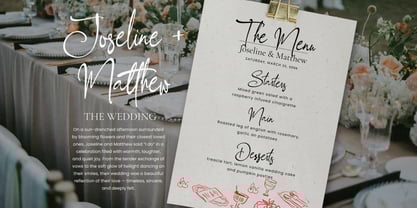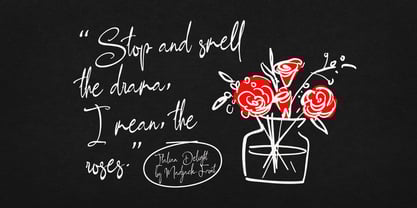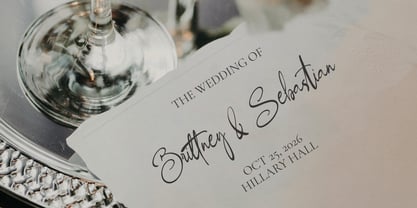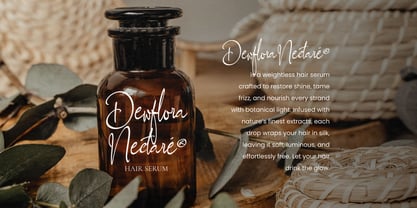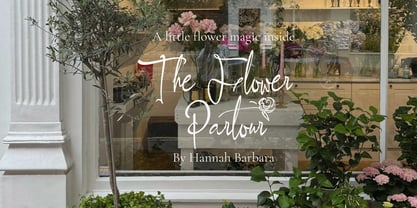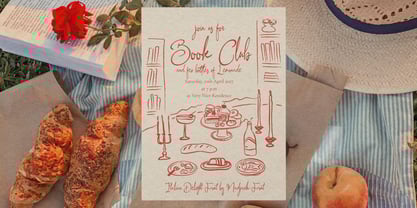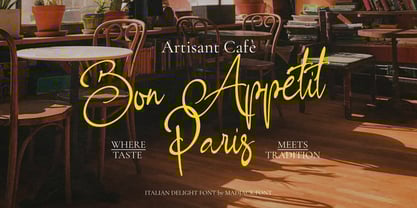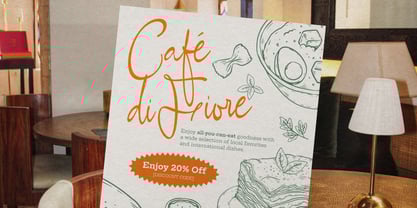
Italian Delight
by madjack.font
The Italian Delight Font Family was designed by Zaki Muhammad and published by madjack.font. Italian Delight contains 1 styles. More about this family
Introducing the unique Italian Delight font. A perfect choice for the 2025 Wedding Season.
This font will look stunning on handwritten wedding invitations, menus, modern wall art, Instagram posts, quotes, and branding. Italian Delight includes a full set of Uppercase and Lowercase Basic Characters, Numbers, Punctuation, as well as various alternates and ligatures.